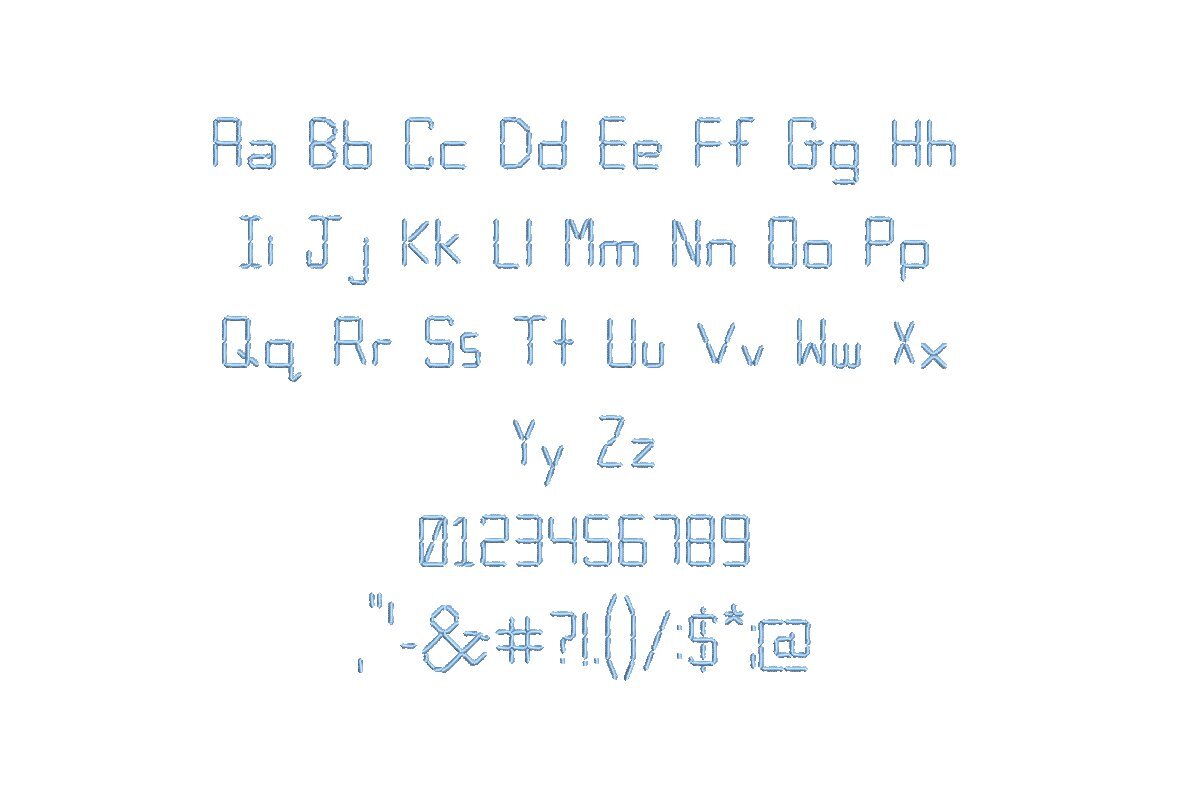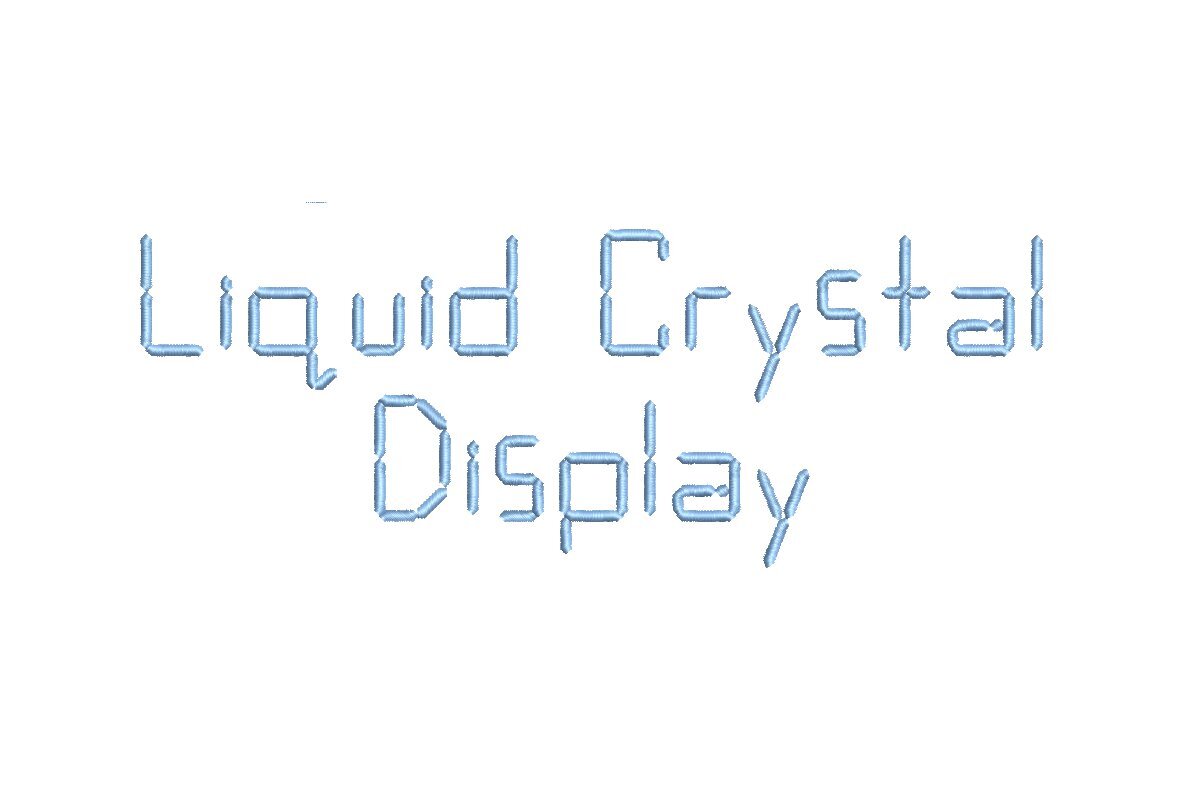
Introducing the Liquid Crystal Display ESA font, your gateway to futuristic embroidery. Meticulously designed for seamless compatibility with Wilcom Studio e4.5.6 and Hatch 3 versions and up, this font seamlessly integrates into your digitizing process. Liquid Crystal Display ESA offers impeccable precision and versatility, making it perfect for monograms, sleek text, and intricate designs. Elevate your embroidery projects with its exceptional quality and modern style. Create professional and captivating designs effortlessly on various fabrics and items. Don't miss the opportunity to enhance your embroidery journey. Choose the Liquid Crystal Display ESA font today and unlock a world of creativity and precision with every stitch, setting new standards for your embroidery excellence.